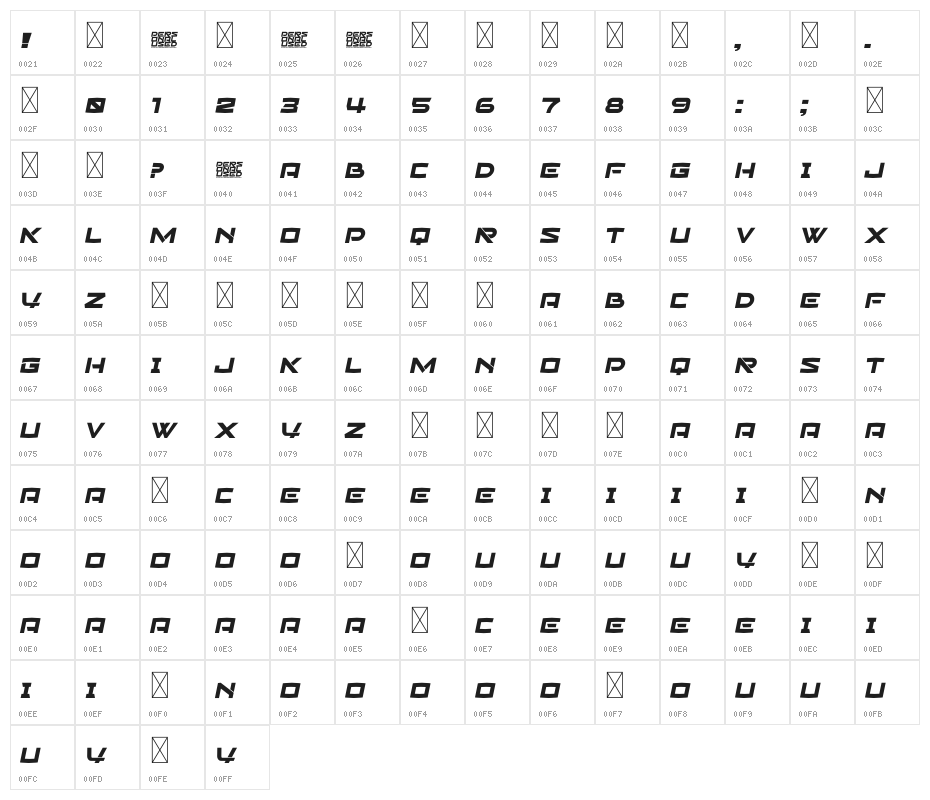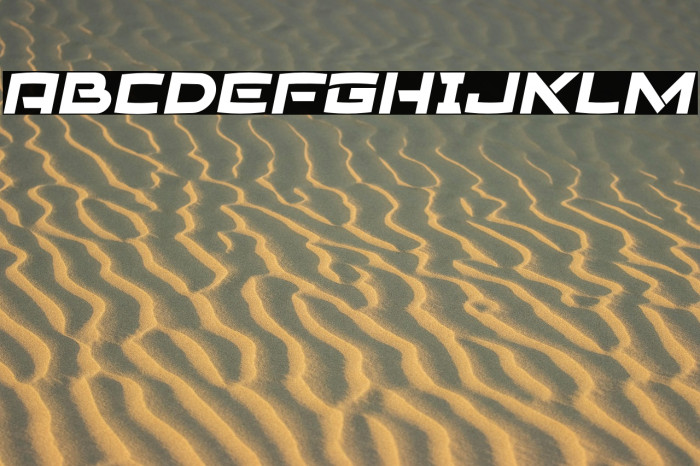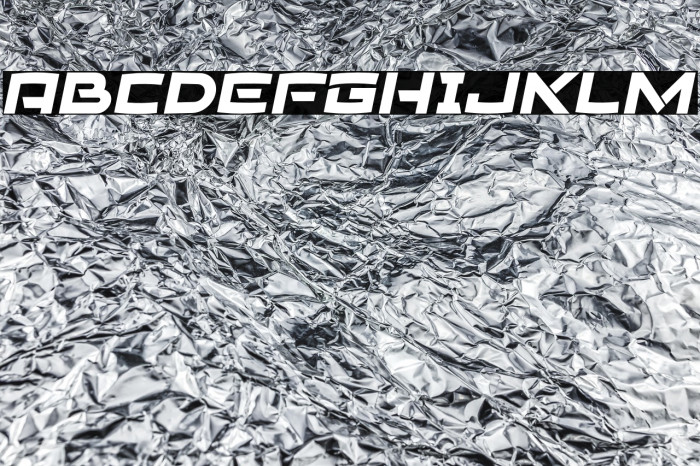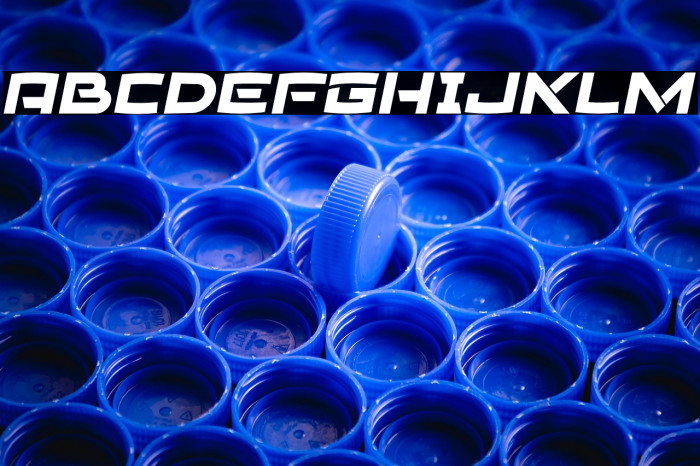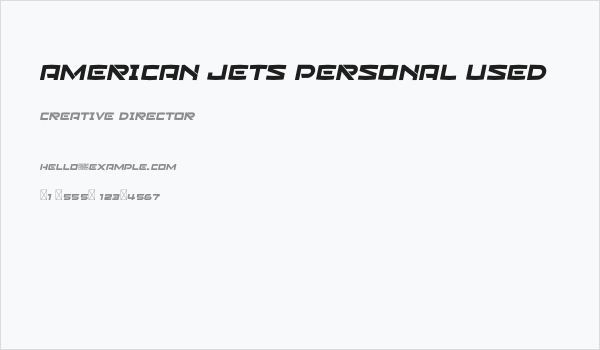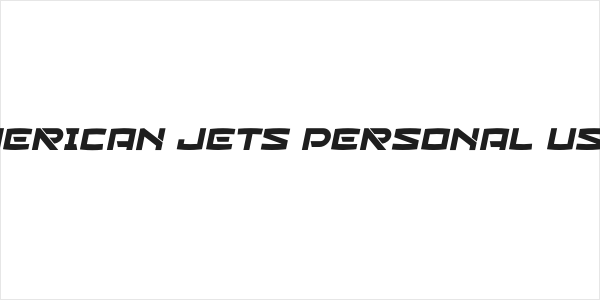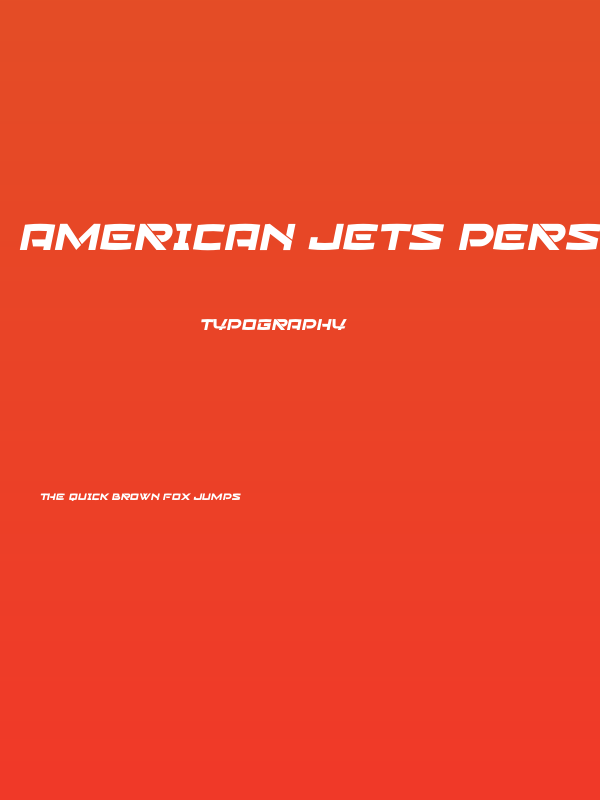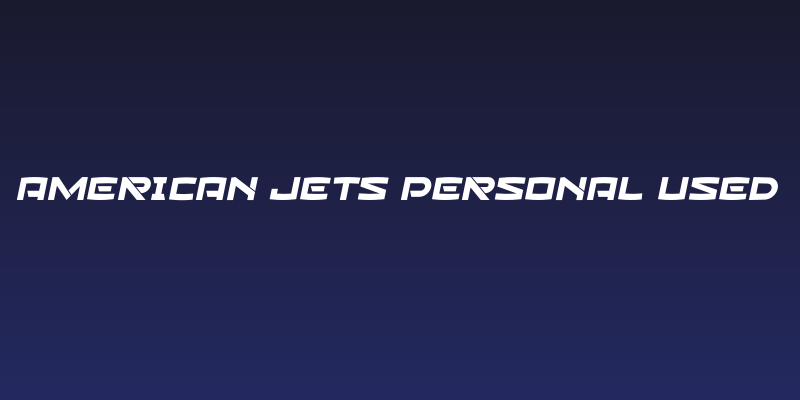
American Jets Personal Used Font
American Jets Personal Used Description
A bold, italicized display font with a futuristic and aerodynamic style, featuring sharp angles and a slanted orientation.
| Overall Style | Modern, Futuristic |
| Proposed Projects | Suggested for use in sports branding, automotive designs, and sci-fi themed projects. |